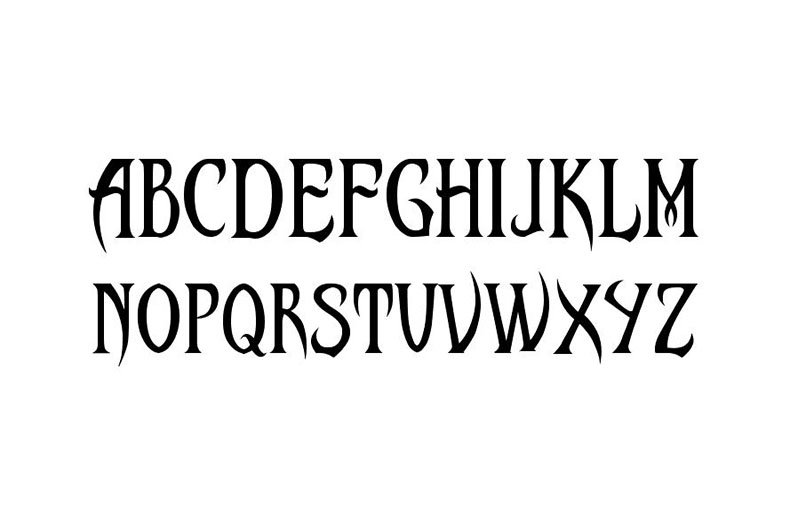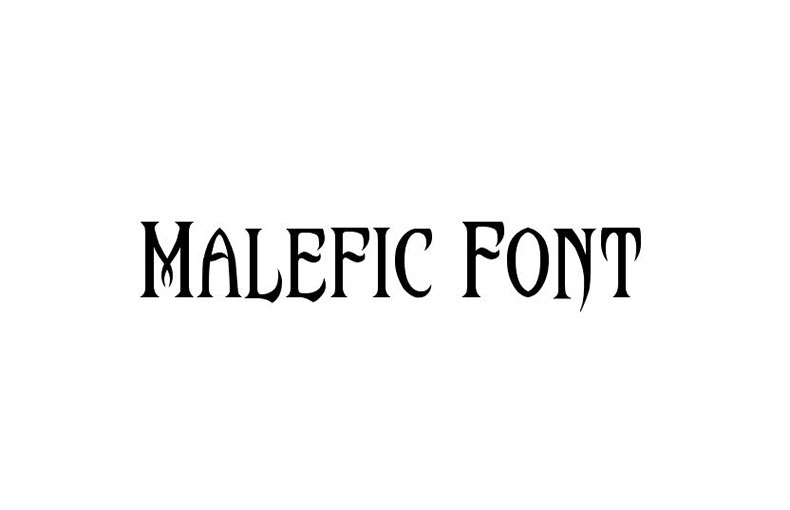
Malefic Font is a unique gothic typeface that was designed by Jennifer Z. The font is distinguished by its angular, sharp edges that give it a threatening aspect.
It is a wise choice for projects like horror films, video games, or comic books that call for a sense of mystery or danger.
The Malefic typeface comes in a single style that contains 237 glyphs and 89 binary stored kerning pairs. It also supports 64 different languages.
| Font Name: | Malefic Font Family |
| Style: | Gothic, Fancy, Various |
| Font Designer: | Jennifer Z. |
The font has a unique visual identity thanks to its distinctive style, which sets it apart from other conventional fonts.
This typeface can be used for a variety of projects, such as birthday cards, social media posters, flyers, signs, websites, journals, invitations, social media posters, flyers, headers, titles, and banners. It is suitable for all creative tasks, including online and print design.
It’s a fantastic addition to any designer’s font collection due to its versatility and intelligibility.
What is the Malefic Font?
A distinctive typeface called Malefic Font is renowned for its terrifying and enigmatic appearance. It’s frequently employed in designs for things like fantasy or horror that call for a gloomy, eerie atmosphere.
Where can I use the Malefic Font?
Malefic Font can be used to provide a scary edge to a variety of creative projects, including posters, Halloween invitations, book covers, and websites with a macabre theme.